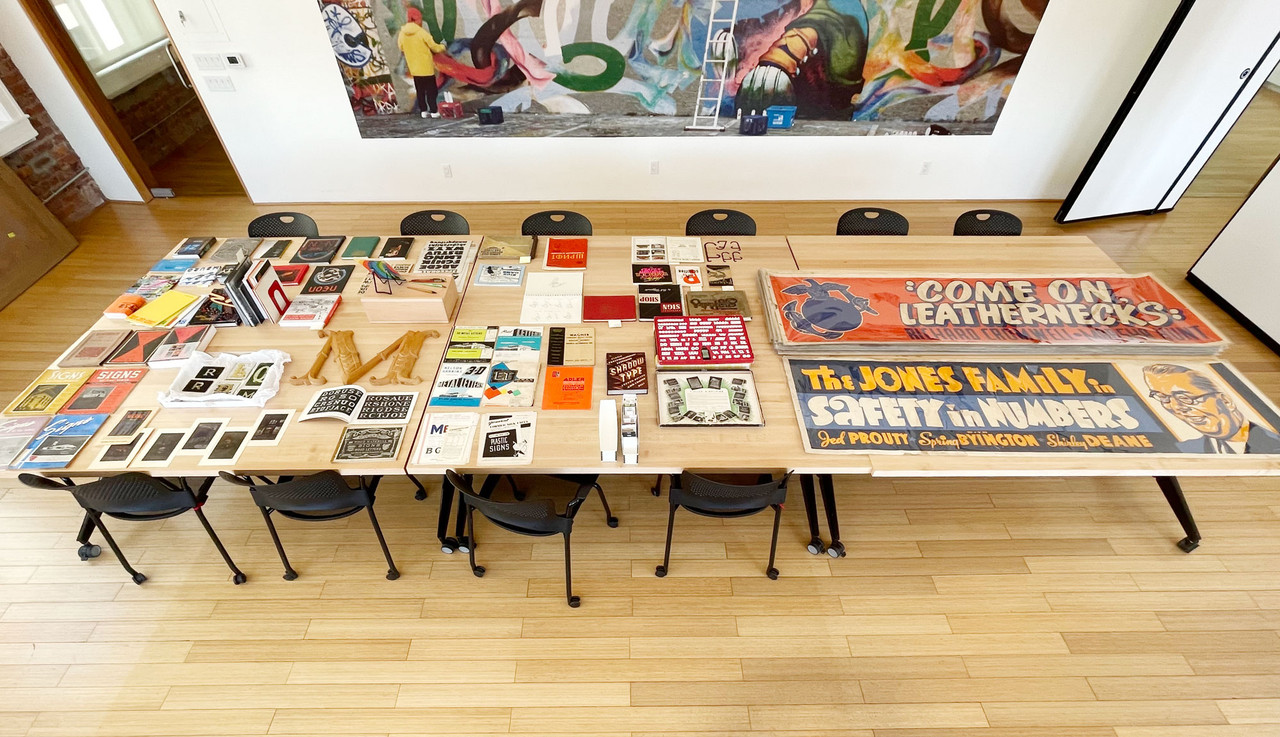
Letterform Archive Tour for Neon Speaks
with Stephen Coles
A hands-on tour of sign and lettering artifacts curated for the annual San Francisco neon festival.
Letterform Archive is a nonprofit museum and library preserving and sharing over 100,000 items of graphic design history. In this special guided tour for the Neon Speaks Festival with Archive associate curator, Stephen Coles, you’ll get hands-on access to original works and books on signs and lettering from this one-of-a-kind collection. See oversized movie theater banners, original artwork from the Speedball archive, an early-20th-century portfolio of neon photography, rare manuals on sign making, and other artifacts, including a major archive of original artwork by Wonderlite, a San Francisco neon sign company active in the 1920s–60s.